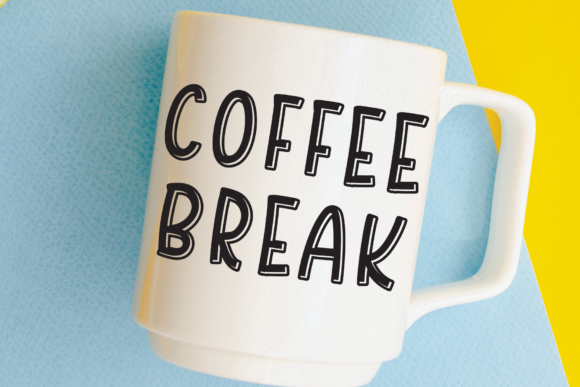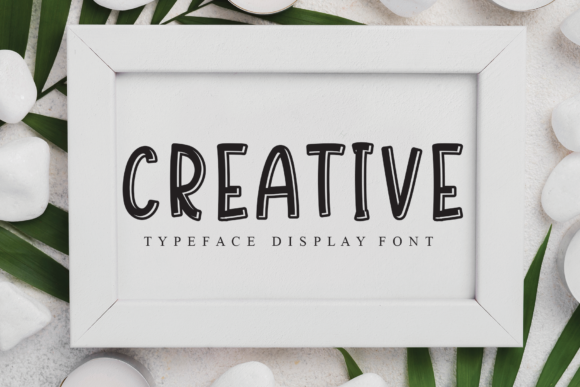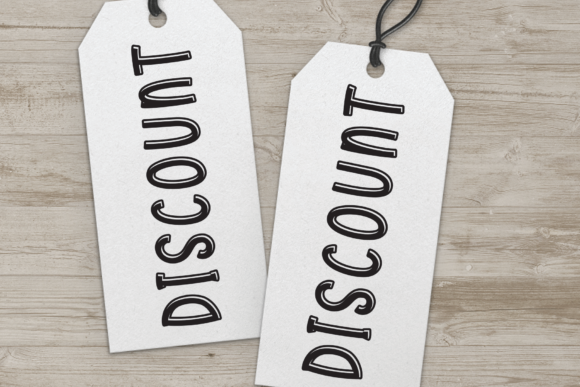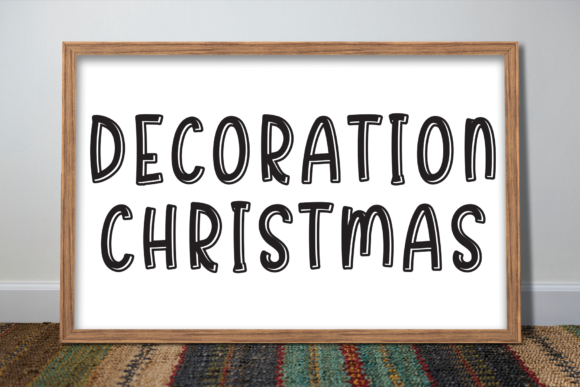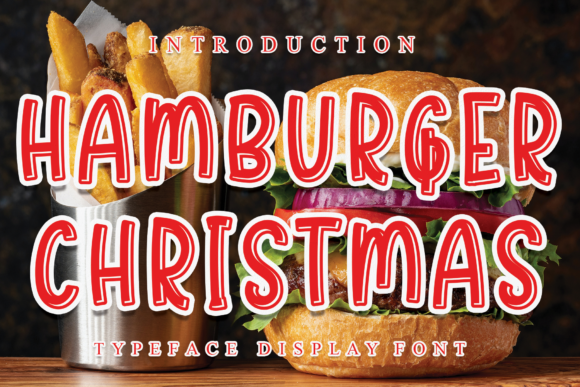
Hamburger Christmas Font: A Bold and Authentic Display Font for Your Holiday Designs
The holiday season is upon us, and with it comes the need for festive and eye-catching designs. Whether you’re a designer, crafter, or DIY enthusiast, having the right font can make all the difference in creating a standout project. That’s where the Hamburger Christmas font comes in – a bold and authentic display font that’s sure to add a touch of holiday cheer to your creative ideas.
What is Hamburger Christmas Font?
Hamburger Christmas font is a specially designed font that captures the essence of the holiday season. With its bold and authentic style, this font is perfect for creating eye-catching headings, titles, and decorations for your holiday projects. Its unique and festive design makes it an ideal choice for designers, crafters, and DIY enthusiasts looking to add a personal touch to their creations.
Key Features of Hamburger Christmas Font
• Bold and Authentic Style: The Hamburger Christmas font boasts a bold and authentic style that’s sure to grab attention.
• Festive and Eye-Catching: Its unique design makes it perfect for creating festive and eye-catching headings, titles, and decorations.
• Versatile: This font can be used for a wide range of holiday projects, from Christmas cards and decorations to holiday-themed crafts and DIY projects.
Benefits of Using Hamburger Christmas Font
• Adds a Personal Touch: The Hamburger Christmas font adds a personal touch to your holiday projects, making them stand out from the crowd.
• Increases Visibility: Its bold and authentic style makes your designs more visible and eye-catching, perfect for grabbing attention.
• Versatile: This font can be used for a wide range of holiday projects, making it a valuable addition to your design toolkit.
Design Ideas Using Hamburger Christmas Font
The Hamburger Christmas font can be used in a wide range of holiday design projects, including:
• Christmas Cards: Create eye-catching Christmas cards with bold and festive headings and titles.
• Holiday Decorations: Use the font to create festive holiday decorations, such as garlands, banners, and signs.
• DIY Projects: Add a personal touch to your DIY projects, such as holiday-themed crafts, ornaments, and gift tags.
• Social Media Graphics: Create festive social media graphics, such as holiday-themed posts and stories.